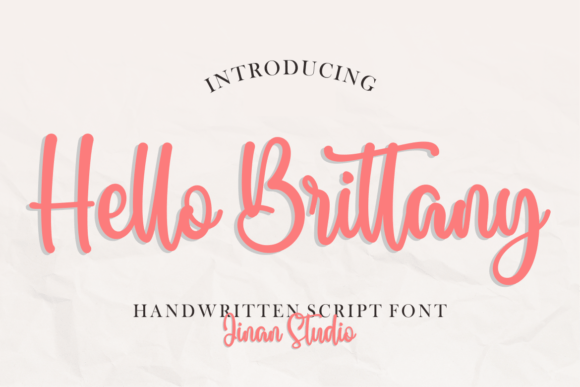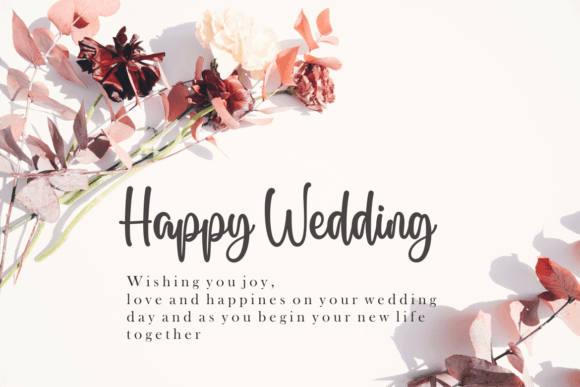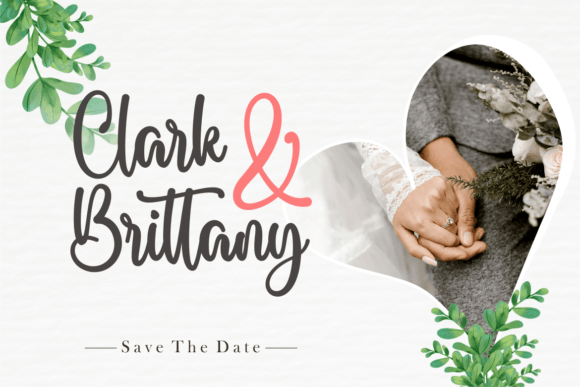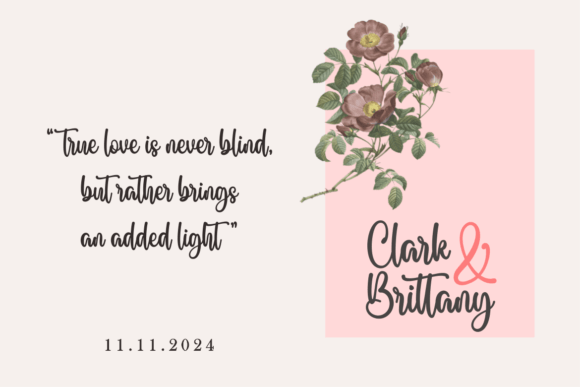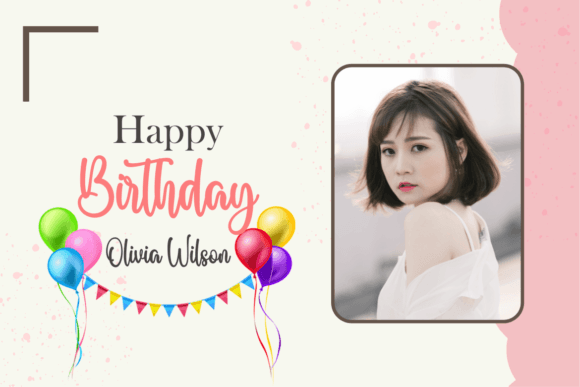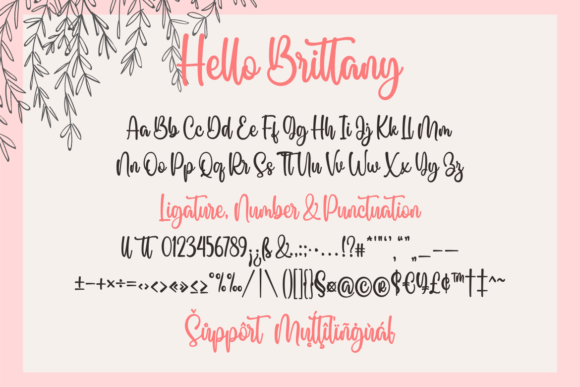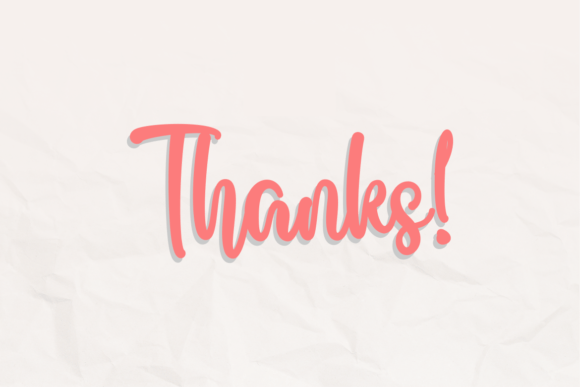
Welcome to the World of Hello Brittany Font
Have you ever sat down with a blank sheet of paper and a pen, waiting for inspiration to strike? The blank page stares back at you, and suddenly, you’re flooded with ideas. The possibilities are endless, and the creative juices start flowing. For designers and crafty individuals, this moment is a sweet escape from the ordinary. It’s the spark that sets off a chain reaction of imagination and innovation.
Meet Hello Brittany Font, a charming and elegant handwritten font designed to add a touch of romance to your creations. Whether you’re crafting greeting cards, designing headlines, or working on a personal project, this font is the perfect companion to bring your ideas to life. With its versatility and modern style, Hello Brittany Font is a valuable asset for designers, offering endless possibilities for creative expression.
Hello Brittany Font Key Features
- Unique Characteristics: This font features a unique blend of modern and vintage elements, with elegant curves and subtle texture, making it perfect for creating visually appealing and sophisticated designs.
Designer Review: Hello Brittany Font
Overall, I think the Hello Brittany Font is a charming and elegant script font. The designer has done a great job in capturing the essence of a friendly, approachable tone that’s perfect for body text. Here are some things that work well: ✨
- The font’s flowing lines and subtle connections between letters make it feel very natural and organic.
- The font’s x-height is well-balanced, making it easy to read in both print and digital formats.
- The font’s character set is comprehensive, making it suitable for a wide range of applications.
However, I do have some reservations about the font’s limitations: ⚠️
- The font’s legibility can suffer at very small sizes, making it less suitable for use in headlines or titles.
- The font’s lack of bold or italic styles can limit its use in certain design contexts.
Overall, I think the Hello Brittany Font is a solid choice for designers looking for a friendly, approachable script font. While it may have some limitations, its charming aesthetic and comprehensive character set make it a great option for a wide range of applications.
Practical Application Guide for “Hello Brittany Font”
The “Hello Brittany Font” is a elegant and modern script font, making it perfect for:
- Food and drink labels
- Brand logos and marketing materials
Remember to pair the font with a clean and simple design to showcase its unique characteristics.